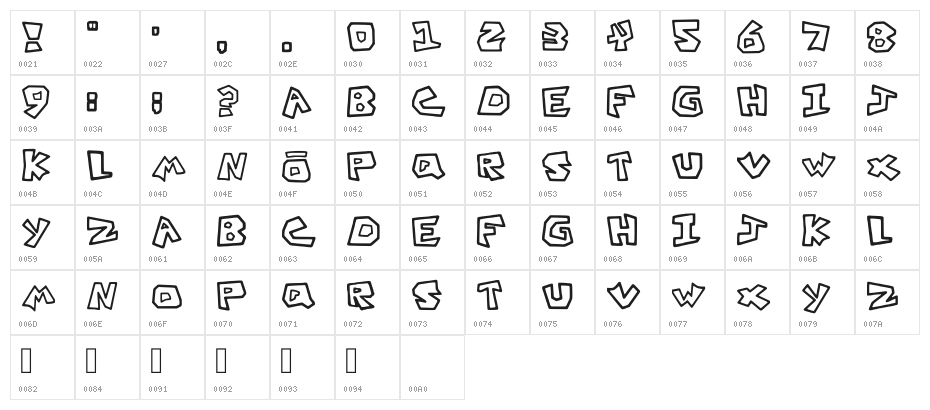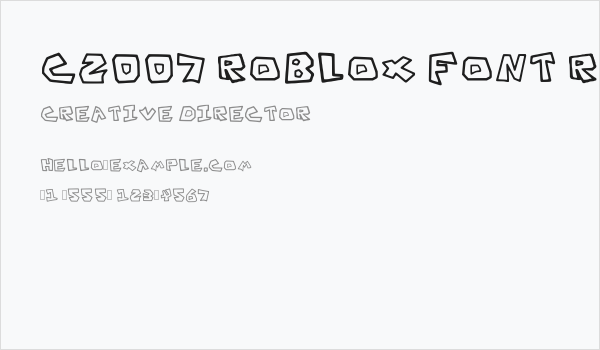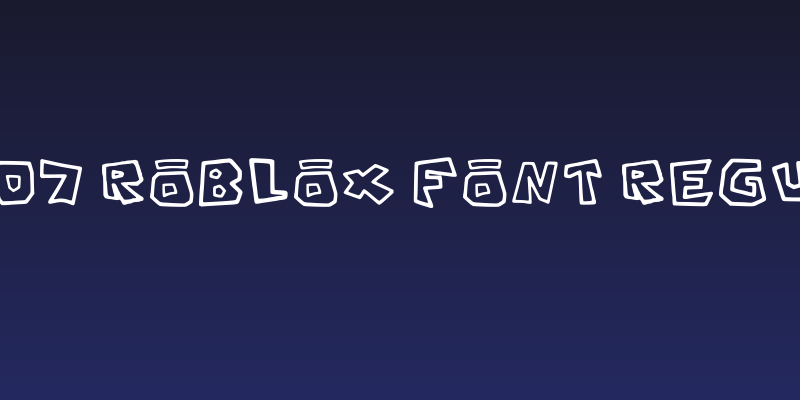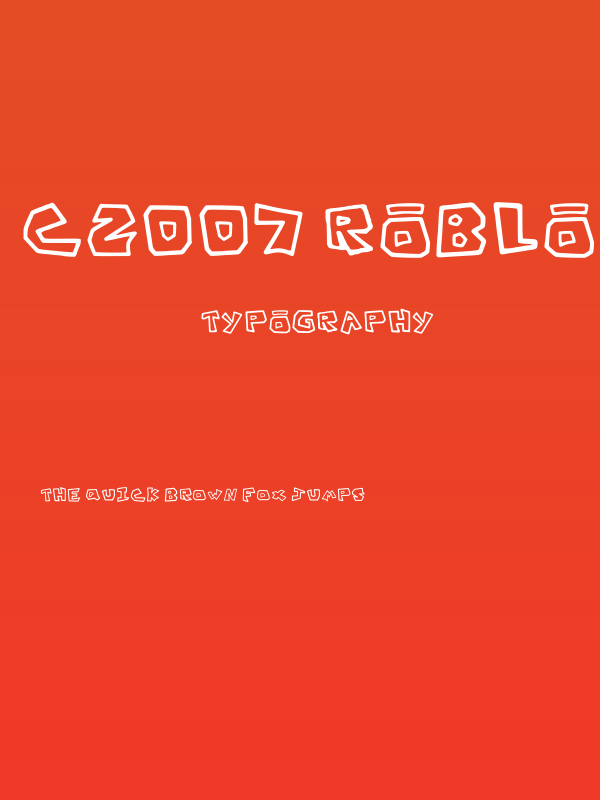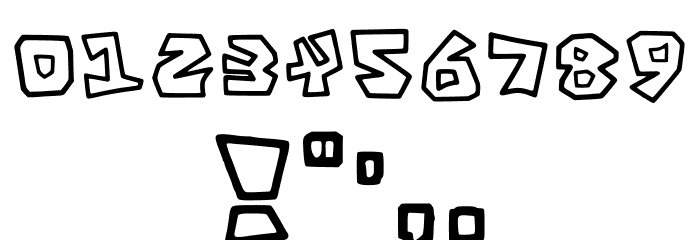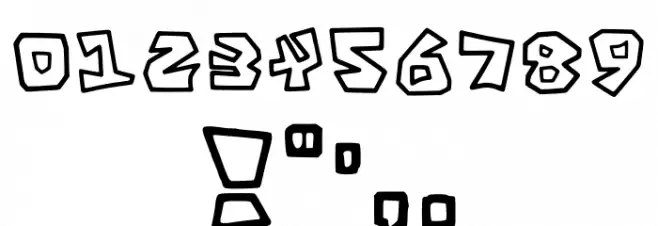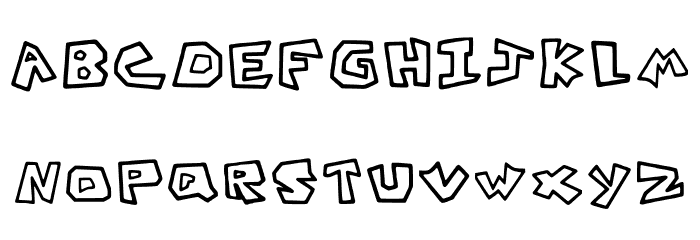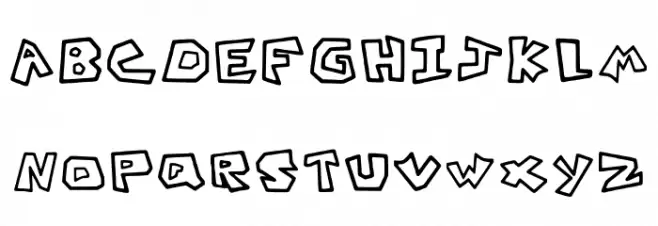
C2007 Roblox Font Regular Font
C2007 Roblox Font Regular Description
This font features a playful and bold style with a hand-drawn appearance. The characters are outlined with a thick, uneven stroke, giving them a cartoonish and whimsical look. The uppercase and lowercase letters maintain a consistent style, with exaggerated angles and irregular shapes. Numbers and special characters follow the same design, adding to the font's cohesive and fun aesthetic. The overall impression is informal and energetic, making it suitable for creative and youthful projects.
| Overall Style | Playful, Cartoonish |
| Proposed Projects | Ideal for children's books, comic strips, video game graphics, and playful branding. |